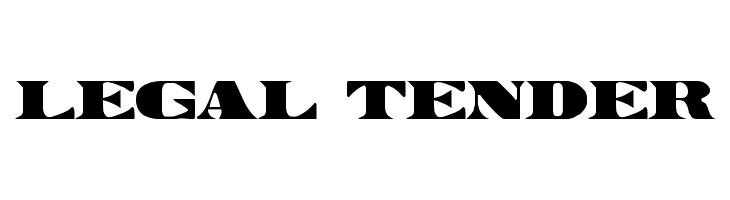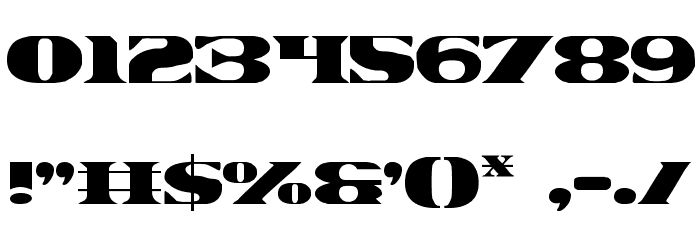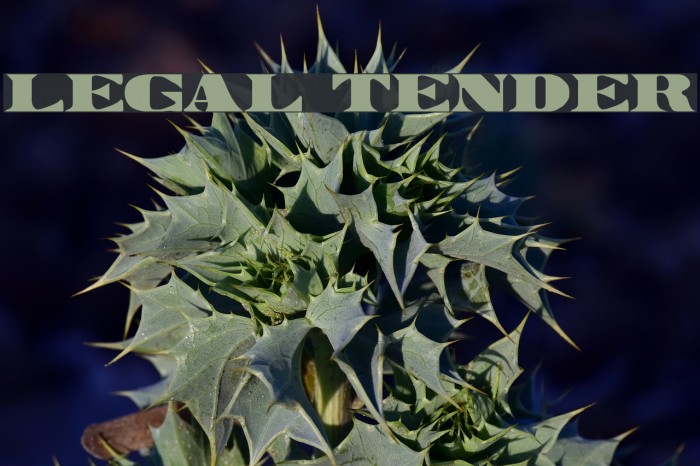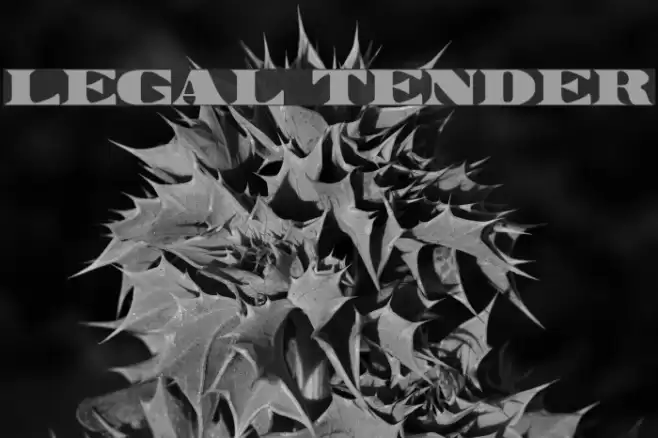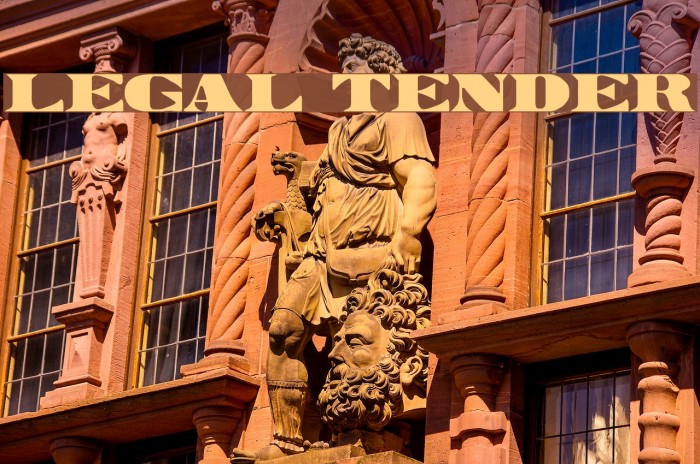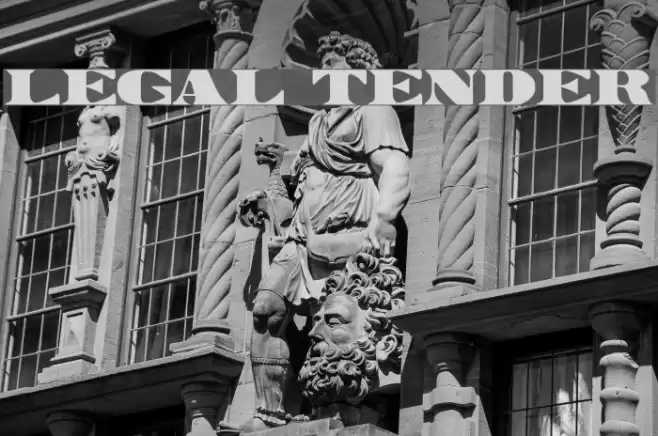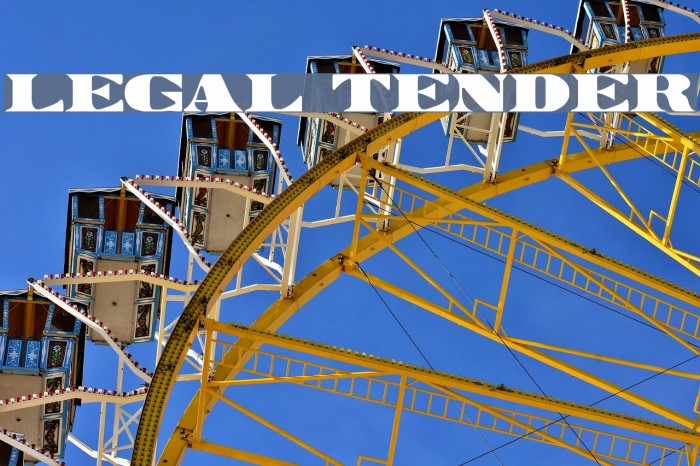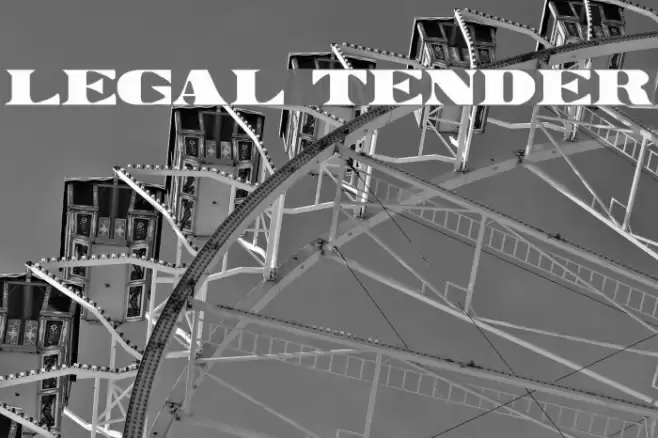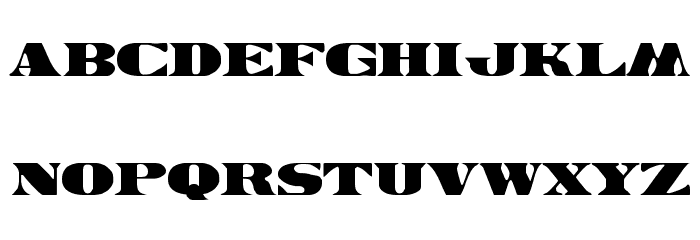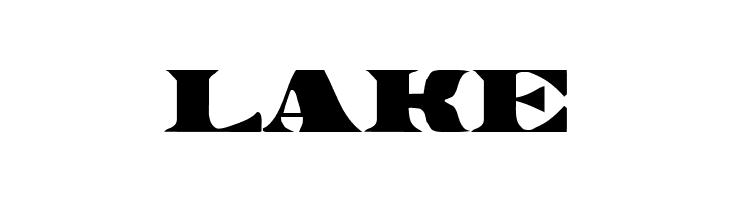
Legal Tender Font
Legal Tender Description
This font features bold, dramatic letterforms with a strong presence. The characters are designed with thick strokes and sharp, angular serifs that give them a commanding and authoritative appearance. The uppercase letters are particularly striking, with a sense of weight and solidity that makes them ideal for impactful headlines. The numbers and special characters maintain this bold style, ensuring consistency across all elements. The overall design is reminiscent of vintage typefaces used in financial or legal documents, lending a sense of tradition and reliability.
| Overall Style | Vintage |
| Proposed Projects | Ideal for use in branding, posters, and any project requiring a strong, authoritative typeface. |